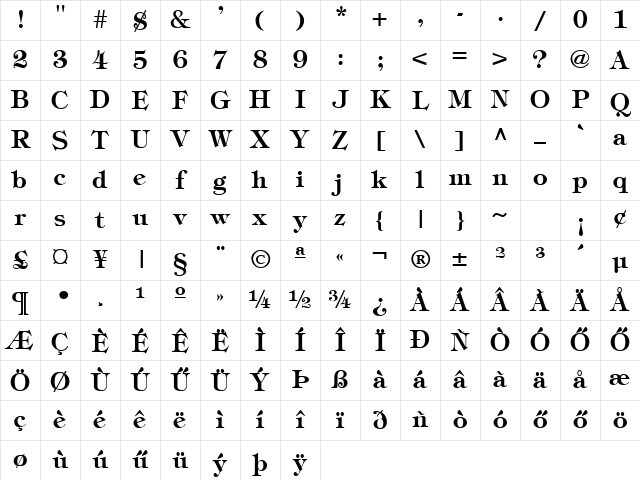
Complete HTimpani Bold glyph index. Displaying only characters natively supported by HTimpani Bold font.
HTimpani is a composed and adaptable typeface that performs quietly and consistently across a wide range of design contexts. Its bold stroke weight gives it real presence on the page.